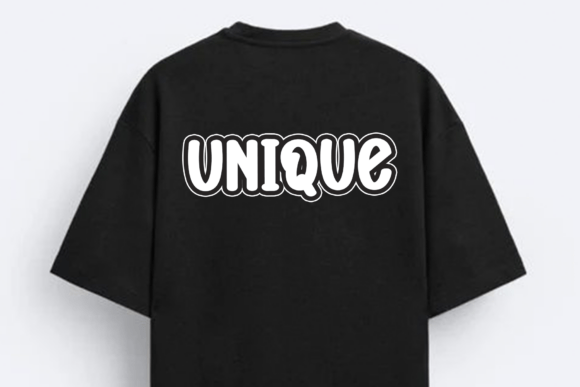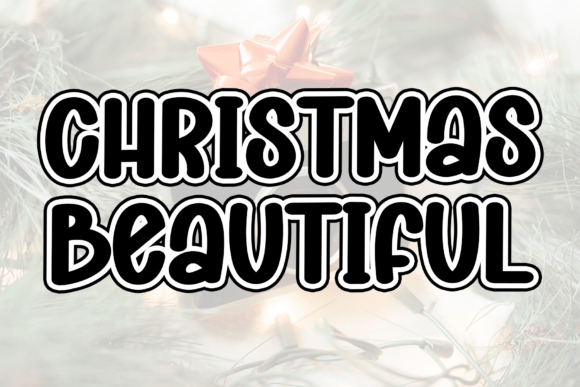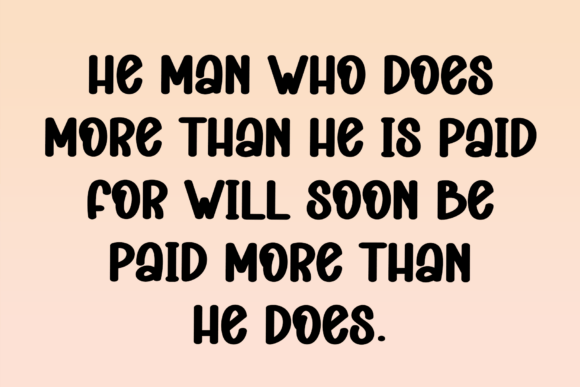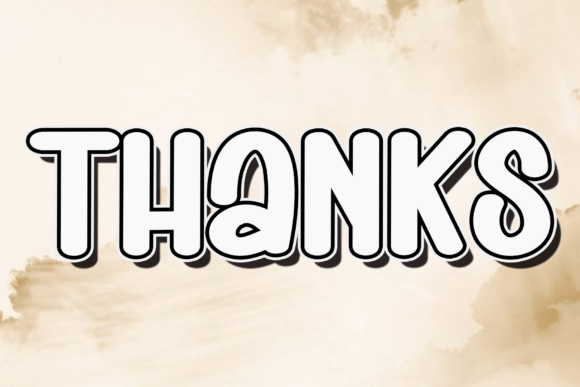
Have you ever been stuck on a design project, struggling to find the perfect font that captures the essence of your brand or message? I know I have. That’s why I’m always on the lookout for fonts that exude a sense of freshness and personality. And, let me tell you, I recently stumbled upon a font that has been making my design process a whole lot easier.
Meet the Friday Font, a charming handwritten font that’s perfect for adding a touch of warmth and elegance to your designs. Its fluid strokes and organic lines evoke a laid-back vibe that’s perfect for branding, invitations, and social media graphics. Whether you’re a seasoned designer or just starting out, the Friday Font is a valuable addition to your toolkit.
Friday Font Key Features
- Unique Characteristics: Friday Font features a unique blend of modern and vintage elements, making it ideal for designs that require a touch of nostalgia and sophistication.
- Font Style: The font style is a sans-serif design with a rounded edge, providing a clean and approachable look.
Designer Review: Friday Font
Overall, I’m quite impressed with the Friday Font. It’s a modern, sans-serif font that’s perfect for digital design. ✨ One of the things that stands out about Friday Font is its clean lines and open feel. It’s incredibly easy to read, even at smaller font sizes.
Here are some of the key features that work well:
- ✨ Highly legible, even at smaller sizes
- ✨ Modern, sans-serif design that’s perfect for digital design
- ✨ Wide range of language support
- ⚠️ Limited support for script and cursive styles
- ⚠️ May not be suitable for use in print designs, as it can appear too digital
Overall, I think Friday Font is a great choice for digital designers. It’s a clean, modern font that’s easy to read and works well in a variety of contexts. However, it’s worth keeping in mind its limitations, particularly when it comes to script and cursive styles.
Practical Application Guide for Friday Font
For a more authentic look, pair the Friday Font with bold, bright colors and geometric shapes.
Use the Friday Font to create eye-catching headlines or titles in your designs.
The Friday Font is ideal for creating engaging presentations or reports with a modern, playful touch.
The Friday Font is perfect for:
- Travel and adventure marketing
- Playful event invitations
Remember to pair the Friday Font with bold, contrasting colors to create a visually appealing design.